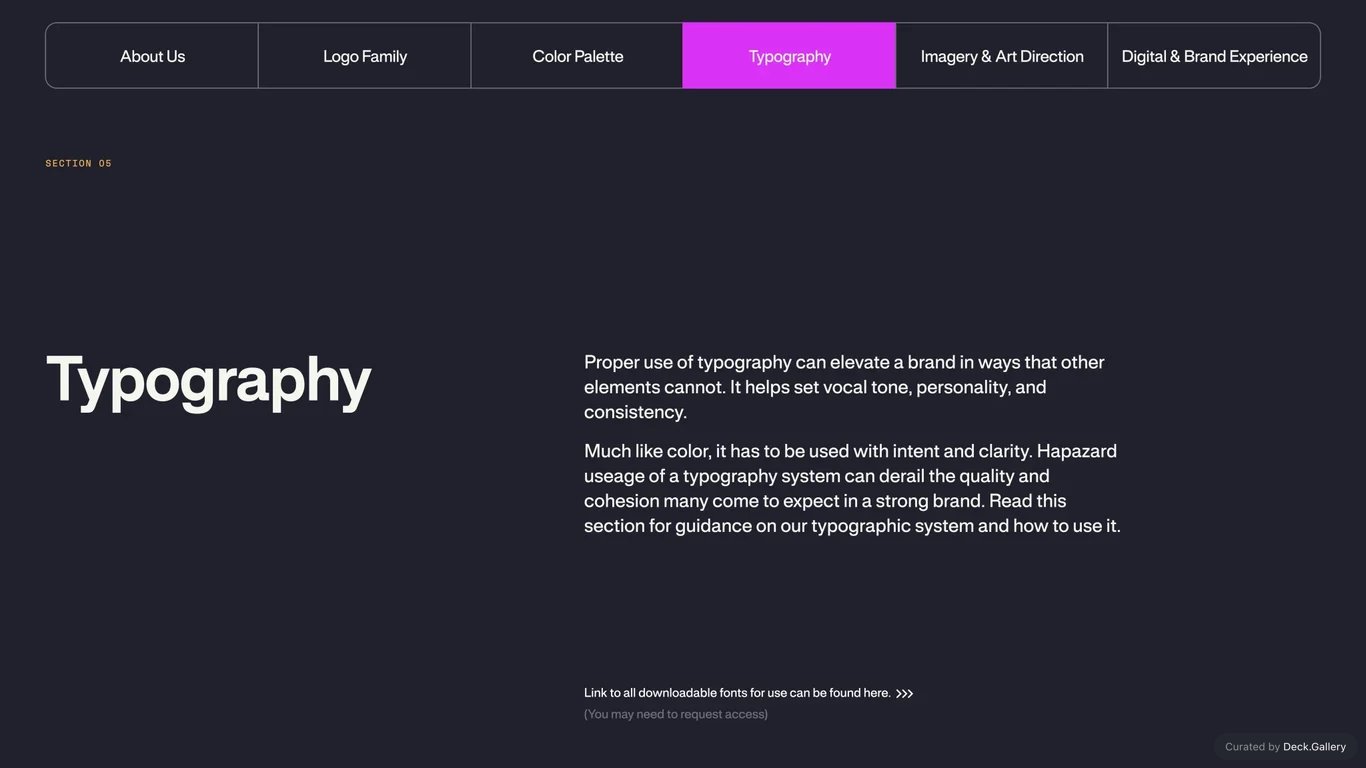
Mash Brand Guidelines 2023
Brand guidelines for Mash, a creator monetization platform built on the mission to remonetize the internet. The 62 slides cover brand strategy with three pillars (Find Your Fit, Power to People, Build for Tomorrow), a logo system with full wordmark and graphic mark variants, a magenta-led color palette with RGB and CMYK specifications, Rules and GT Flexa typefaces with an 8-divisible type scale, energetic illustration direction, and application mockups across web, mobile, social, and print touchpoints.
- Slide 1: Brand Guidelines for Mash monetization platform
- Slide 2: Better ways to monetize, find yours
- Slide 3: Table of contents for all sections
- Slide 4: About Us: brand strategy section
- Slide 5: Purpose: make earning online free, open, and value-based
- Slide 6: Mission: remonetize the internet
- Slide 7: Three brand pillars: find your fit, power to people, build for tomorrow
- Slide 8: Brand attributes: empowering, flexible, convenient, supportive
- Slide 9: Messaging pillars: confidence, aspiration, and humanized tone
- Slide 10: Text and voice messaging guidelines
- Slide 11: Logo Family section overview
- Slide 12: Logo family variants and usage rules
- Slide 13: Primary wordmark in standard and stacked lockups
- Slide 14: Wordmark with dark letterform
- Slide 15: Wordmark with light letterform
- Slide 16: Graphic mark construction and geometry
- Slide 17: Graphic mark clearspace and sizing
- Slide 18: Animated graphic mark for interactive contexts
- Slide 19: Full wordmark on dark surface
- Slide 20: Full wordmark on light surface
- Slide 21: Logo abbreviation and single-color lockup
- Slide 22: Do's and don'ts: logo usage guidelines
- Slide 23: Logo applications on brand color backgrounds
- Slide 24: Color Palette section overview
- Slide 25: Primary color palette: magenta, neutrals, and accents
- Slide 26: Color specifications with RGB and CMYK values
- Slide 27: Acceptable contrast combinations for readability
- Slide 28: Logo applications on brand colors
- Slide 29: Typeface system overview and principles
- Slide 30: Typeface principles and system design
- Slide 31: Rules: primary typeface with weights and sizes
- Slide 32: Rules typeface specimens and character set
- Slide 33: Rules type scale divisible by 8 with tier hierarchy
- Slide 34: Rules specimen and scale examples
- Slide 35: GT Flexa: secondary typeface with variable features
- Slide 36: GT Flexa as fluid design system typeface
- Slide 37: GT Flexa specimen with variable axis demonstration
- Slide 38: Complete hierarchy: eyebrow through label sizes
- Slide 39: Type application: auto and one-click payments
- Slide 40: Type sample: unlimited ways to earn, find yours
- Slide 41: Monetization messaging type examples
- Slide 42: Type hierarchy for branded copy and body text
- Slide 43: Imagery & Art Direction section
- Slide 44: Editorial imagery with energetic illustrations
- Slide 45: Supporting image library and visual reference
- Slide 46: UI elements bank showing product components
- Slide 47: Leaderboard, voting, and boost features
- Slide 48: UI building blocks and component library
- Slide 49: Brand Experience: digital and brand touchpoints
- Slide 50: Presentation slide template with brand hierarchy
- Slide 51: Print rules for presentations and materials
- Slide 52: Print collateral: flyers and promotional materials
- Slide 53: Content monetization card mockup
- Slide 54: Web apps and integration mockups
- Slide 55: Donations and fundraising feature card
- Slide 56: Brand expression across digital experiences
- Slide 57: Mobile and responsive design patterns
- Slide 58: System snippets and marketing callouts
- Slide 59: Social media examples: Instagram feed templates
- Slide 60: Website interactive and final expression
- Slide 61: Mobile app and web responsive design